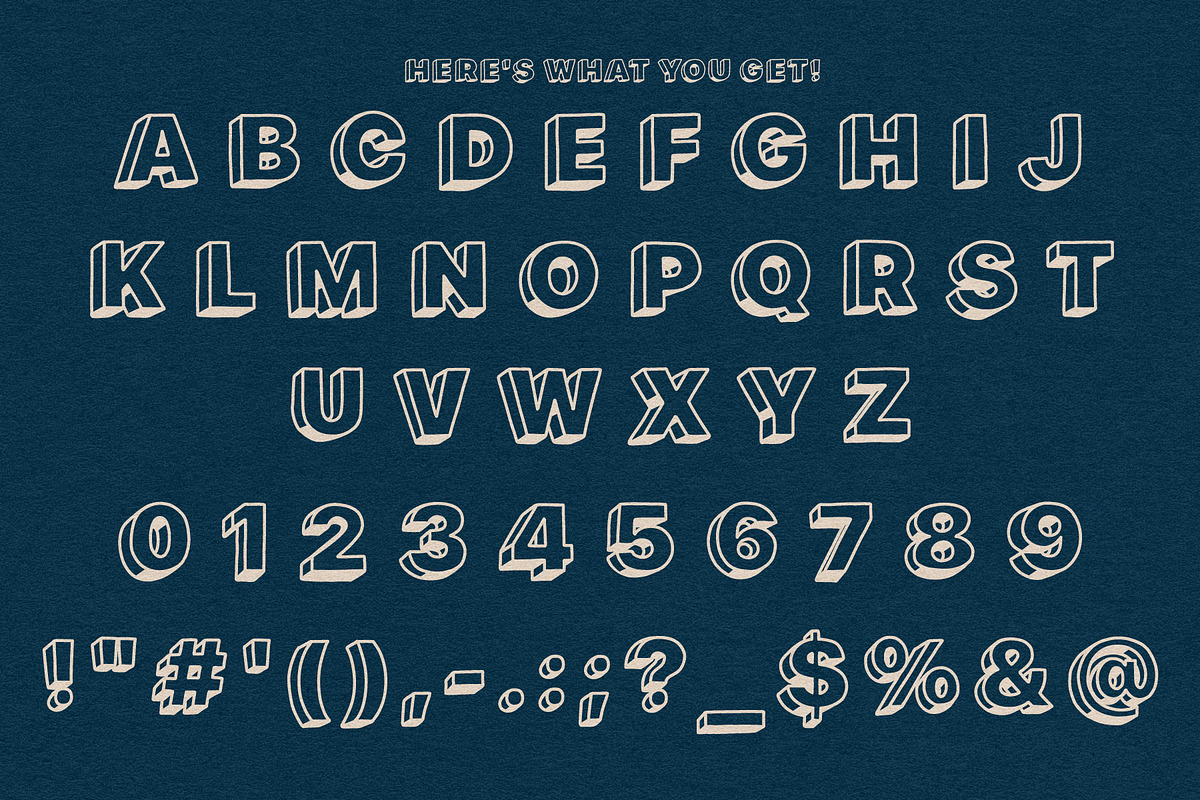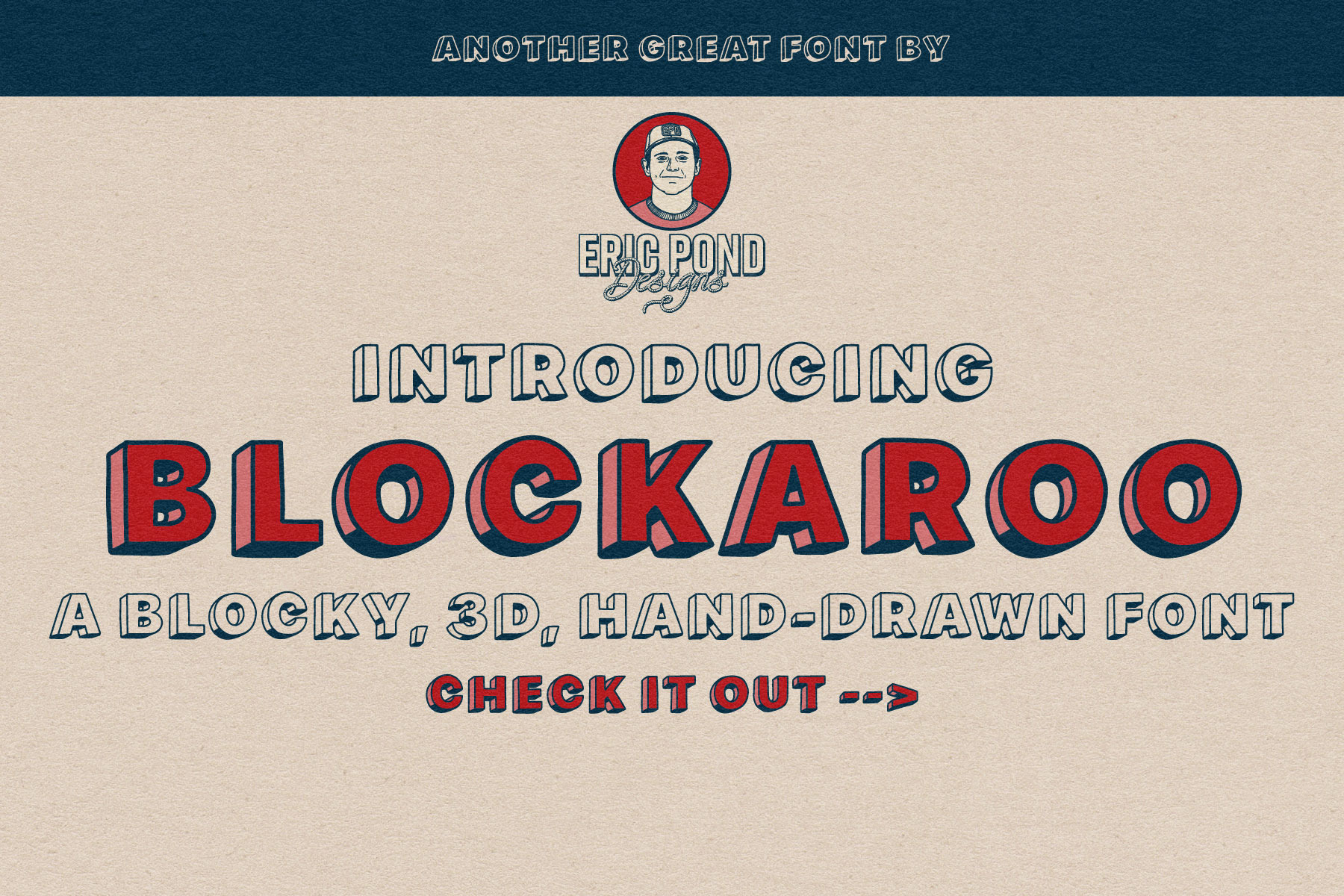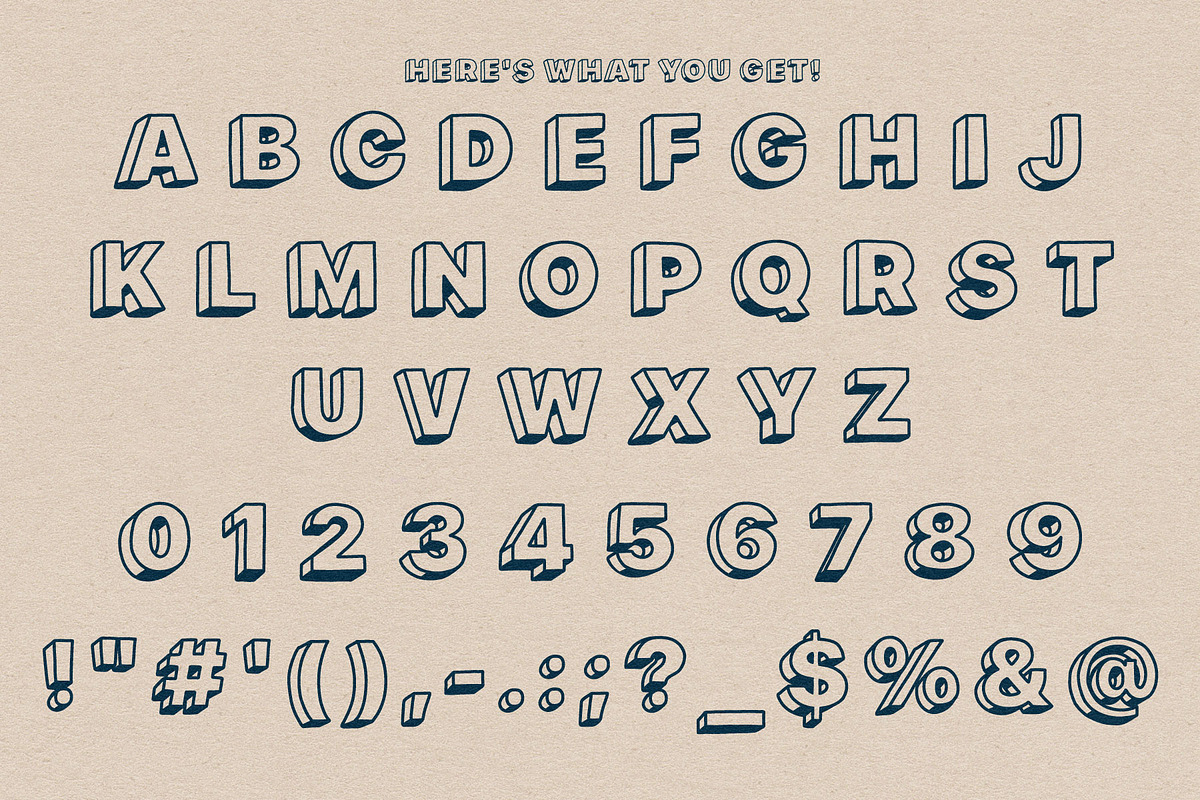
Blockaroo - A Blocky, 3D, Font
Introducing Blockaroo, a New Font by Eric Pond Designs! Featuring a Blocky, 3D, Hand-drawn style including uppercase, numbers and some punctuation!